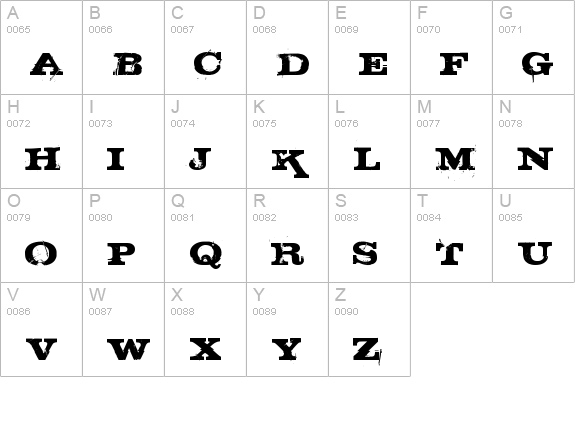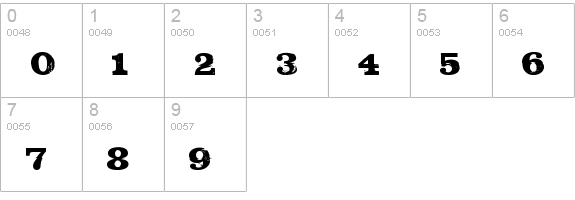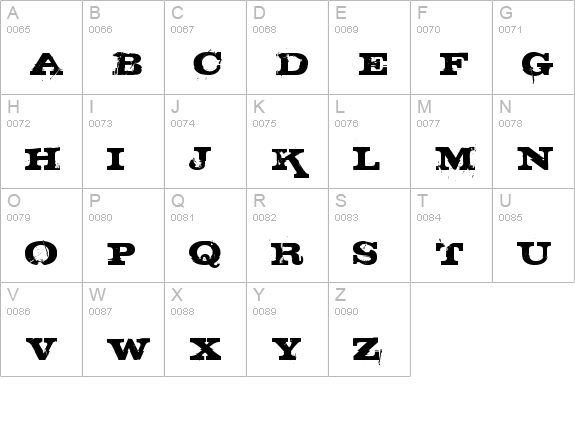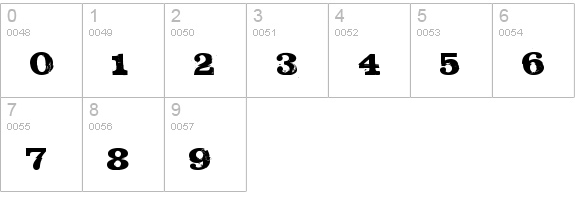
STEAK Font Details
STEAK is a free for personal use font in the General > Slab-Serif category. It has been downloaded 144 times and is available for Windows, Mac and Linux.
Introducing STEAK Font, a bold and irresistible typeface that will add a sizzling touch to your designs. This font encapsulates the essence of a perfectly cooked steak, with its robust and juicy letterforms. It is the ideal choice for projects that require a strong and masculine aesthetic, evoking a sense of power and confidence. What makes STEAK Font even more enticing is that it is available for free download at FontsMarket.com. This means that you can easily incorporate this mouthwatering font into your designs without breaking the bank. Whether you are working on a menu for a steakhouse, a barbecue-themed event, or simply want to add a touch of meaty goodness to your designs, STEAK Font is the perfect choice. With its bold and impactful presence, STEAK Font will make your headlines stand out and grab attention. Its sleek and well-defined letterforms create a sense of elegance and sophistication, while still retaining a touch of ruggedness. This font truly embodies the spirit of a perfectly cooked steak – bold, flavorful, and unforgettable. The versatility of STEAK Font is another reason to fall in love with it. It can be used in a variety of design projects, from branding and packaging to posters and social media graphics. Its strong and legible characters ensure that your message is delivered with clarity and impact, while its unique style adds a touch of personality and flair. So, why settle for ordinary fonts when you can have the extraordinary? Download STEAK Font for free at FontsMarket.com and unleash the power of this deliciously captivating typeface in your designs. Let your creativity sizzle and make a bold statement with STEAK Font.